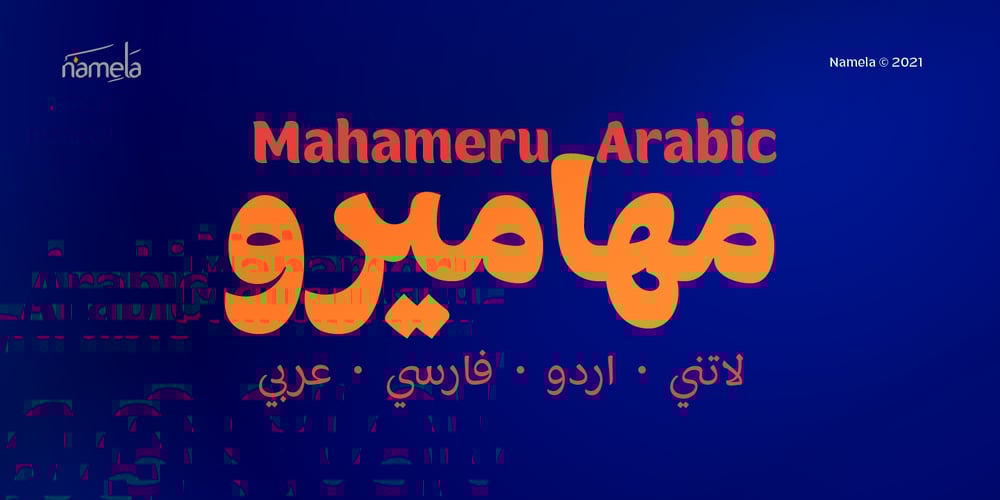
Mahameru Arabic Font Family was designed by Nur Syamsi and published by NamelaType. Mahameru Arabic contains 10 styles and family package options. Mahameru Arabic is sibling of Mahameru with the addition of Arabic glyphs, for Arabic, Urdu, and Farsi.With still gives a firm and soft character, with the terminal point on straight and curved strokes.The family has 9 weights ranging from Thin to Black and offers a lot of features flexibility that will help you find the best typographic color for your project.